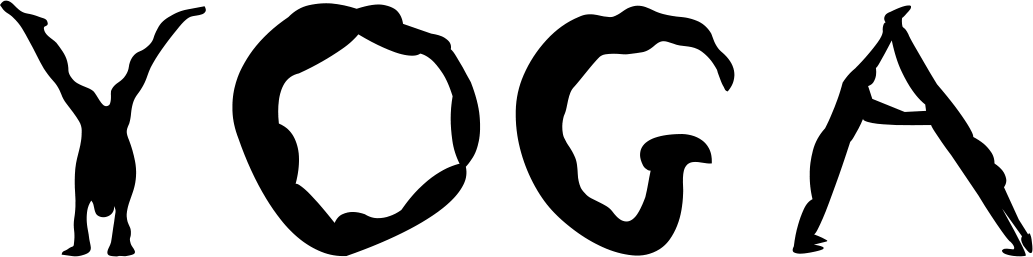
Yoga Font
Designed byMarko Rodic
Wanna try something unique for your yoga club or gym? Take a look at today’s font! All the characters in Yoga are designed with yoga moves and the only missing piece in this collection is a lowercase set. You can use this yoga font for decorative purposes and get creative with your presentation.